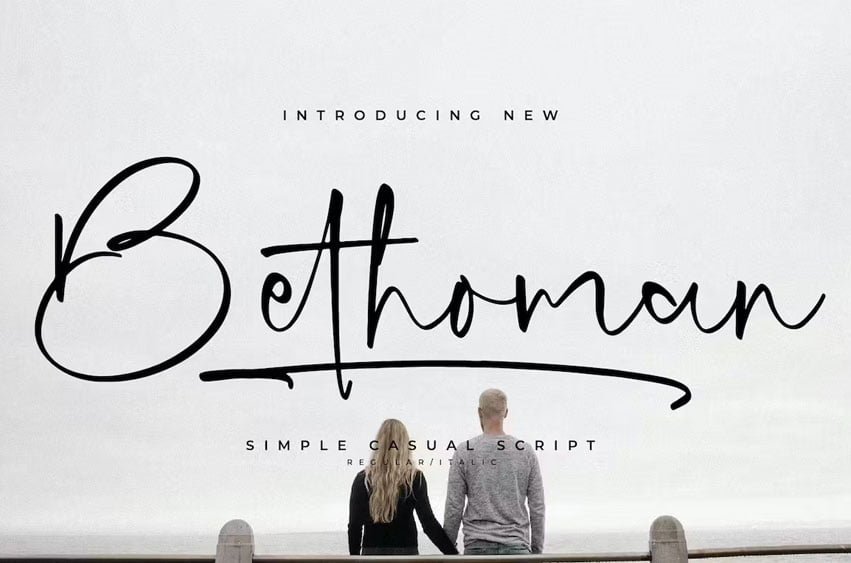
Bethoman Simple Font is suitable to complement your digital and printed creative products. This font is perfect for posters, social media posts, branding, personal projects, etc.